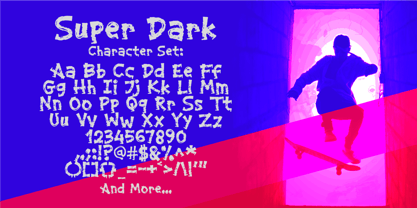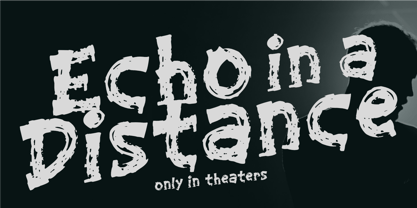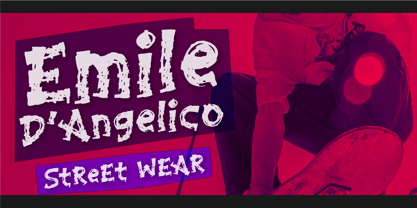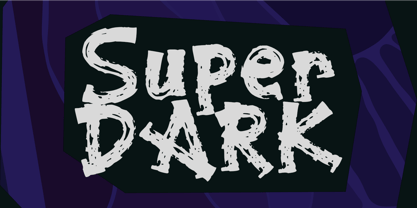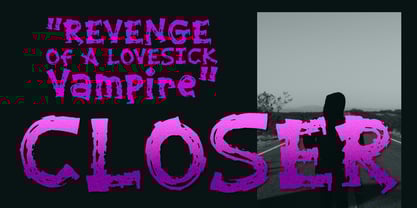
Super Dark
by Olivetype
The Super Dark Font Family was designed by Nurul Hidayani and published by Olivetype. Super Dark contains 1 styles.
Super Dark – Gritty Brush Font for Cinema, Thrillers & Bold Branding
Step into the shadows with Super Dark, a raw and intense brush font designed for cinematic titles, thriller posters, and bold branding. With rough edges and hand-painted strokes, Super Dark brings a dramatic flair to any visual project that needs a touch of dark energy and grunge expression.
Perfect for movie posters, film trailers, gaming graphics, album covers, and horror branding, Super Dark makes a bold statement with every letter. Whether you're designing for a dystopian sci-fi, crime thriller, or action-packed storyline, this typeface delivers high impact and unforgettable style.